Emigre
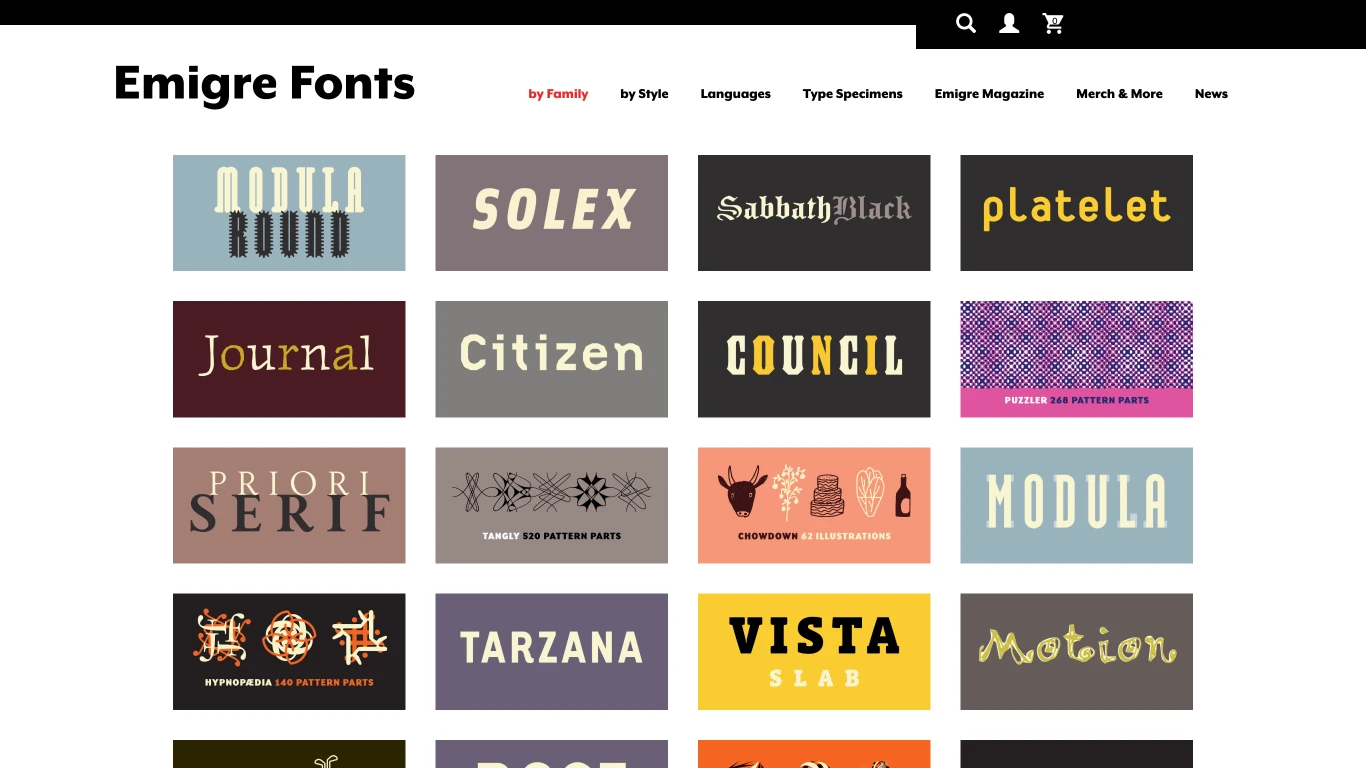
1984
Emigre, Inc., founded in 1984 by Rudy VanderLans and Zuzana Licko in Berkeley, California, is a pioneering digital type foundry and publisher. They were among the first to explore the possibilities of digital typography, coinciding with the advent of the Macintosh computer. From 1984 until 2005, Emigre published the influential Emigre magazine, a quarterly devoted to visual communication and experimental design. Their unique approach combined innovative type design with a platform for discussing and showcasing contemporary graphic design, significantly impacting the evolution of digital typography.